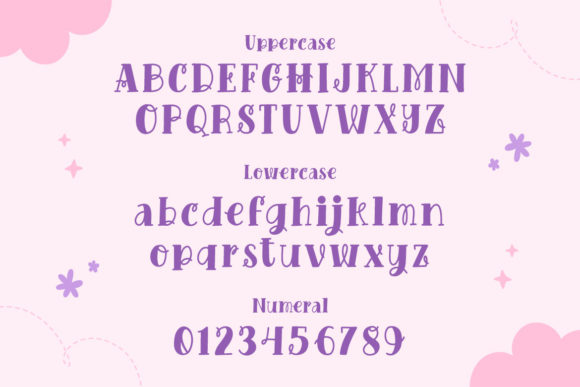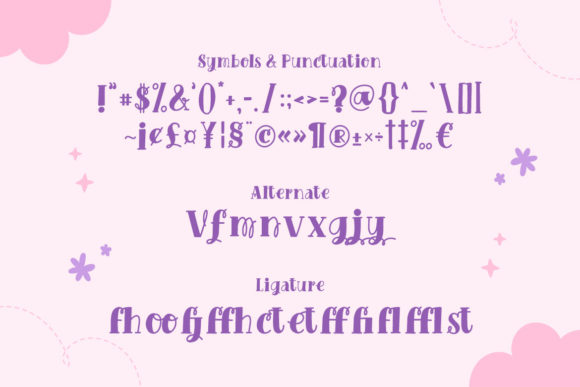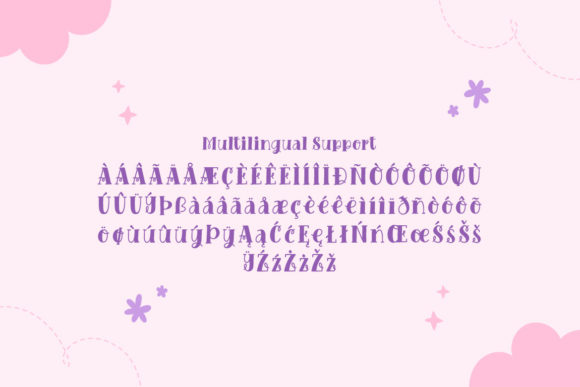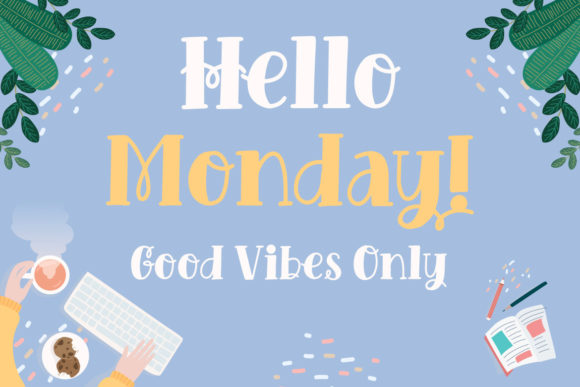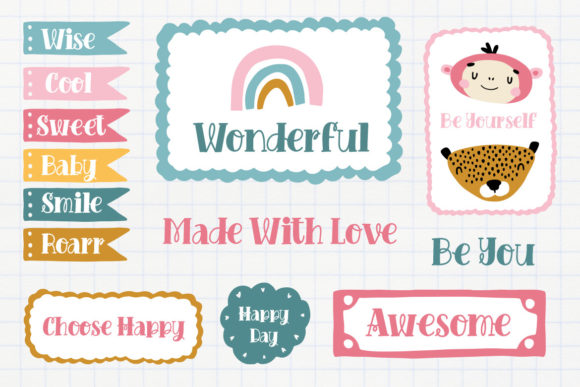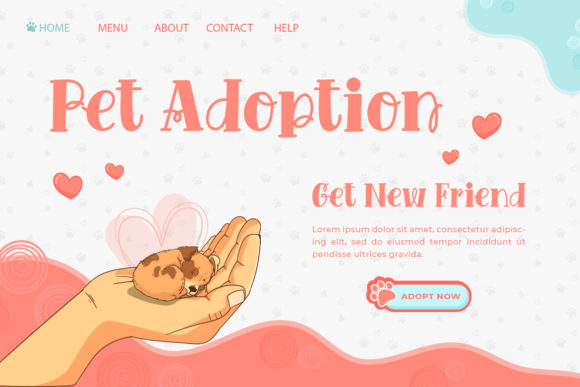
Cutenest Font: The Perfect Choice for Fun and Playful Designs
Are you looking for a font that embodies playfulness and authenticity? Look no further than Cutenest, a curly and fun display font that’s perfect for any children activity or school project. In this article, we’ll dive into the world of Cutenest font, exploring its features, benefits, and uses, and why it’s a must-have for designers and crafters.
What is Cutenest Font?
Cutenest is a unique and charming display font that’s designed to bring a touch of playfulness and whimsy to your designs. Its curly and fun letters are perfect for creating eye-catching titles, headings, and text that will capture the attention of your audience. Whether you’re working on a children’s activity book, a school project, or a fun DIY craft, Cutenest font is the perfect choice.
Features of Cutenest Font
Cutenest font comes with a range of features that make it a versatile and fun font to work with. Some of its key features include:
- Curly and playful letters: Cutenest font features curly and playful letters that are perfect for creating fun and eye-catching text.
- Display font: Cutenest is a display font, making it perfect for titles, headings, and text that needs to stand out.
- Authentic and playful feel: Cutenest font has an authentic and playful feel that’s perfect for children’s activities and school projects.
Benefits of Using Cutenest Font
So why choose Cutenest font for your next project? Here are just a few benefits of using this fun and playful font:
- Adds a touch of playfulness: Cutenest font adds a touch of playfulness and whimsy to your designs, making them more engaging and fun.
- Perfect for children: Cutenest font is perfect for children’s activities and school projects, making it a great choice for designers and crafters who work with kids.
- Easy to read: Despite its curly and playful design, Cutenest font is easy to read, making it perfect for titles, headings, and text.
Uses of Cutenest Font
Cutenest font is a versatile font that can be used in a range of projects, including:
- Children’s activity books: Cutenest font is perfect for children’s activity books, adding a touch of playfulness and fun to titles, headings, and text.
- School projects: Cutenest font is a great choice for school projects, making it perfect for posters, presentations, and other school assignments.
- DIY crafts: Cutenest font is also perfect for DIY crafts, such as scrapbooking, card making, and other paper crafts.
Tips for Using Cutenest Font
Here are a few tips for using Cutenest font in your designs:
- Use it sparingly: Cutenest font is a display font, so use it sparingly to add emphasis to titles, headings, and text.
- Pair it with other fonts: Cutenest font pairs well with other fonts, so experiment with different combinations to find the perfect look for your design.
- Experiment with colors: Cutenest font looks great in a range of colors, so experiment with different colors to find the perfect look for your design.
Cutenest font is a fun and playful display font that’s perfect for any children activity or school project. Its curly and playful letters add a touch of whimsy and authenticity to your designs, making them more engaging and fun. Whether you’re a designer or crafter, Cutenest font is a must-have in your font collection. So why not give it a try and see how it can add a touch of playfulness to your designs?